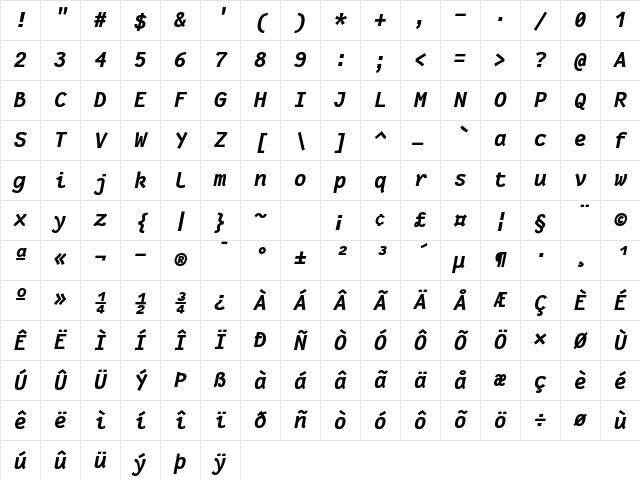
Complete FantasqueSansMono Nerd Font Bold Italic glyph index. Displaying only characters natively supported by FantasqueSansMono Nerd Font Bold Italic font.
FantasqueSansMono Nerd Font uses fixed-width spacing throughout, giving it the structured, systematic character associated with coding environments and technical documentation. The slanted form adds forward momentum and visual energy. Its bold stroke weight gives it real presence on the page.